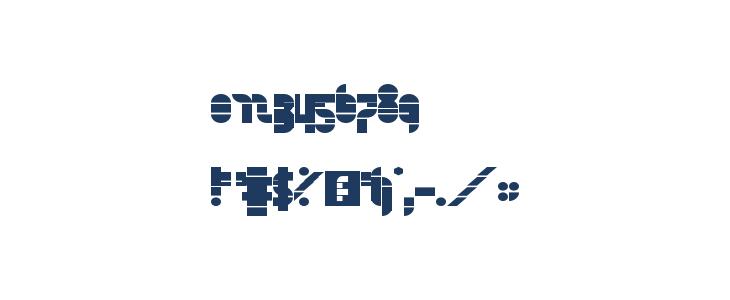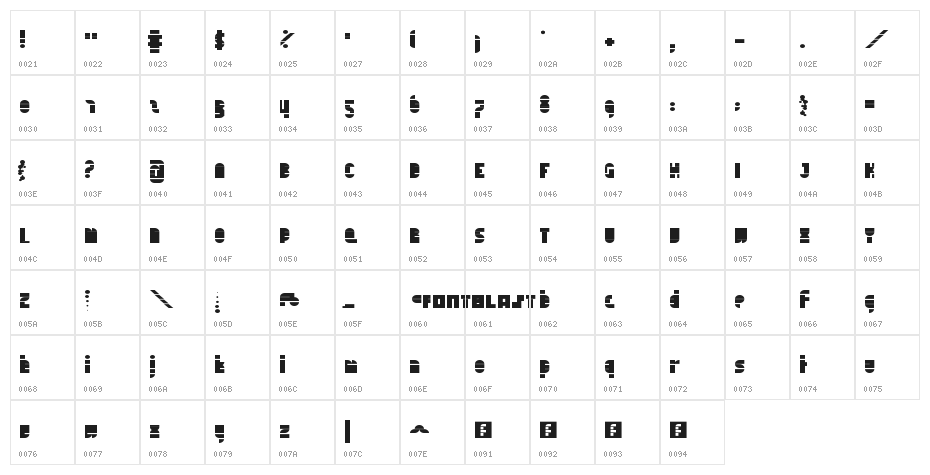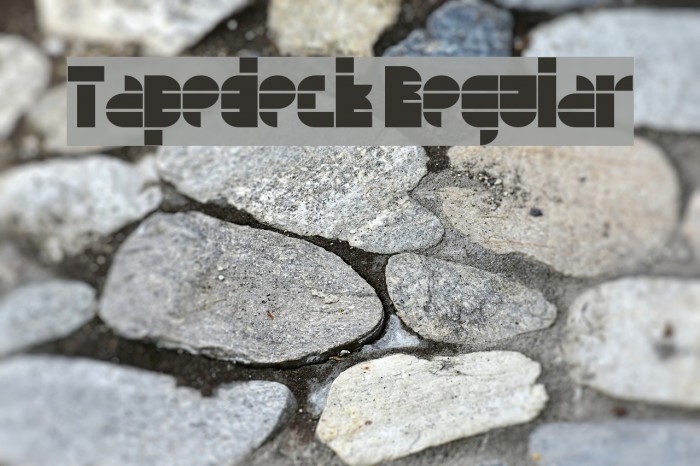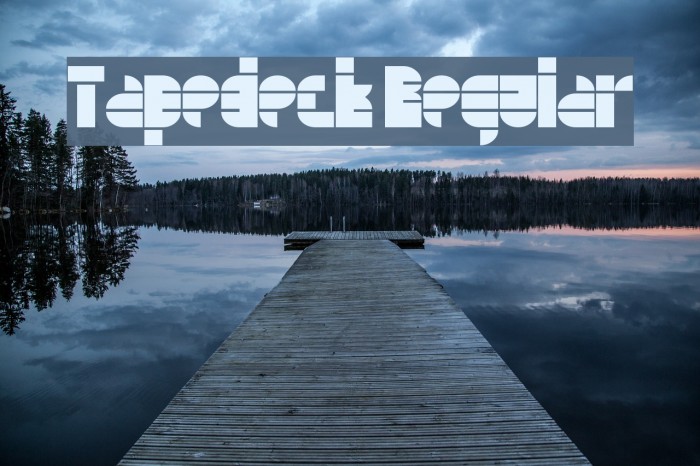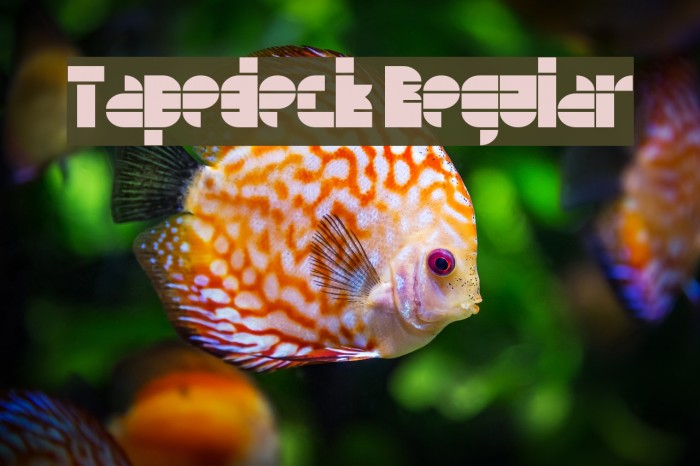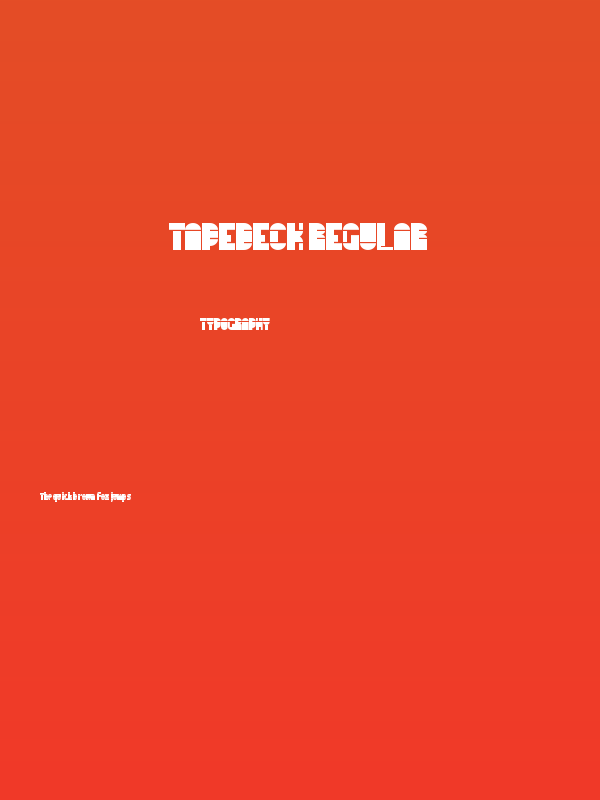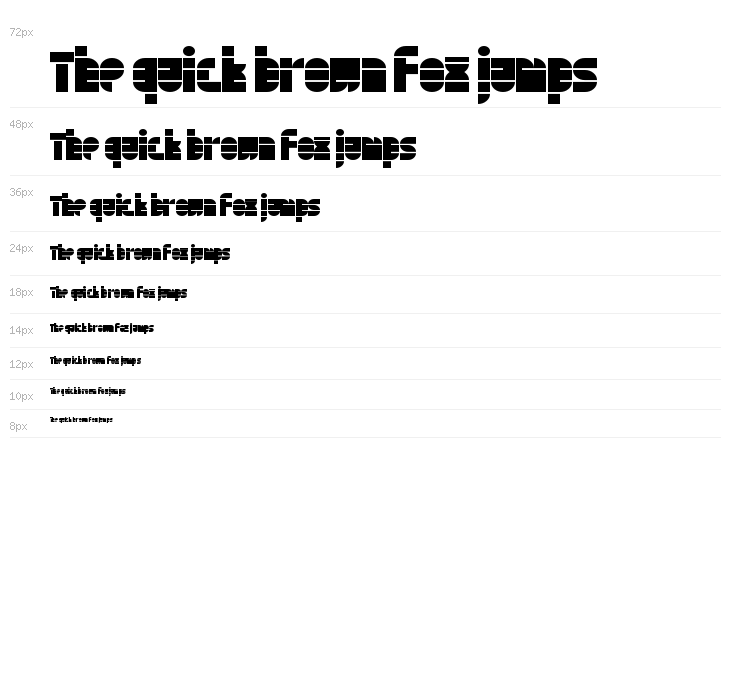
Tapedeck Regular Font
Tapedeck Regular Description
This font features a bold, geometric design with a distinctly modern and futuristic aesthetic. The characters are constructed from solid, block-like shapes that create a sense of weight and presence. Each letter is composed of thick, uniform strokes, giving the font a cohesive and structured appearance. The use of negative space within the characters adds an element of intrigue and complexity, making it visually striking. The font's unique style is reminiscent of retro digital displays or industrial design, making it suitable for projects that require a bold and unconventional look.
| Proposed Projects | Ideal for use in digital displays, posters, album covers, and branding projects that seek a bold, modern look. |